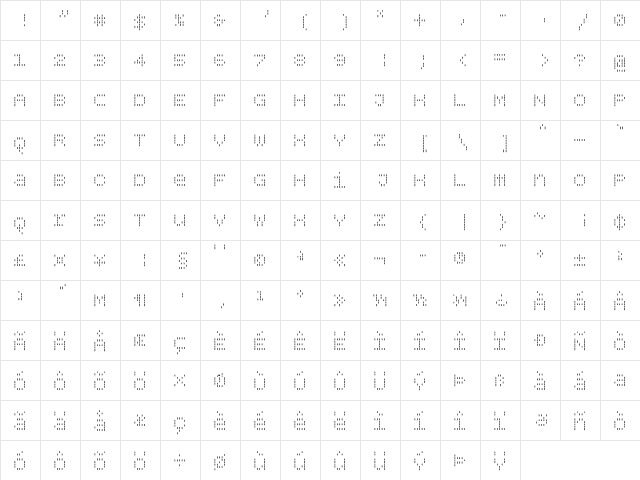
BPdotsUnicaseVertical Regular
Design Context for BPdotsUnicaseVertical Typeface
BPdotsUnicaseVertical is rooted in pixel-grid construction, making it a natural fit for game UI, retro computing aesthetics, and digital nostalgia projects.
Well-suited to indie game interfaces, retro computing aesthetics, and pixel art-adjacent design work.
Pro Tip: Use BPdotsUnicaseVertical at sizes that align with its pixel grid for the sharpest rendering — scaling to non-integer multiples can introduce unwanted blur.